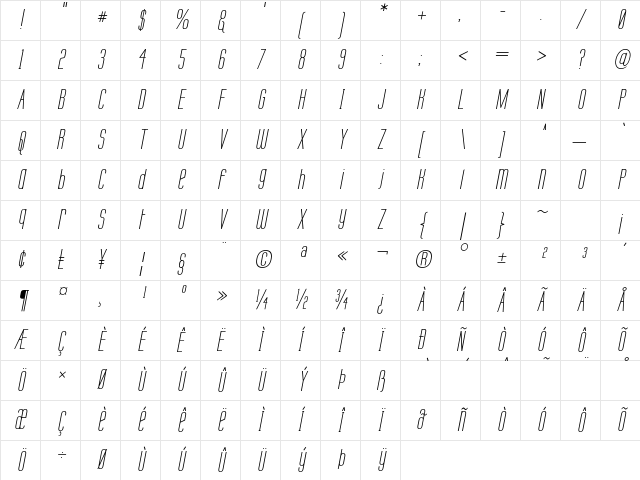
Labtop Unicase Italic Free Font
Labtop Unicase Italic
Design Context for Labtop Unicase
Labtop Unicase is a composed and adaptable typeface that performs quietly and consistently across a wide range of design contexts. The slanted form adds forward momentum and visual energy.
Pro Tip: Use Labtop Unicase for emphasis, pull quotes, and subheadings where its slanted energy can add rhythm to the layout.